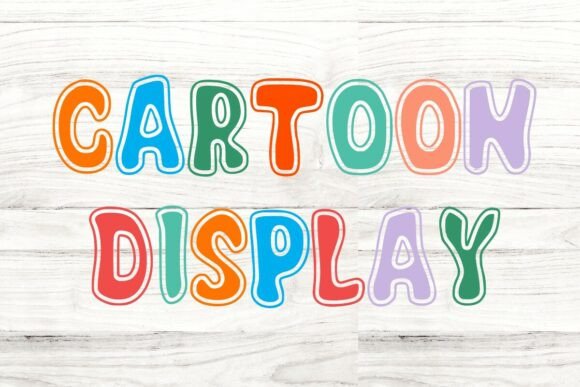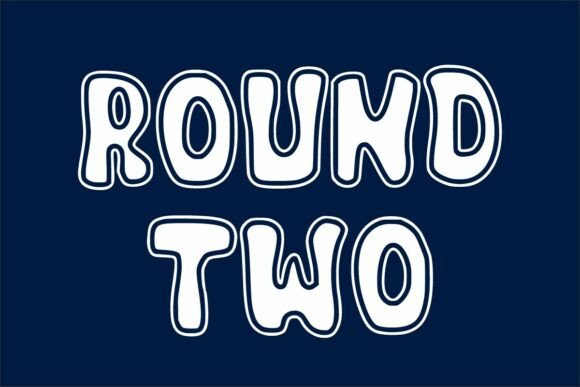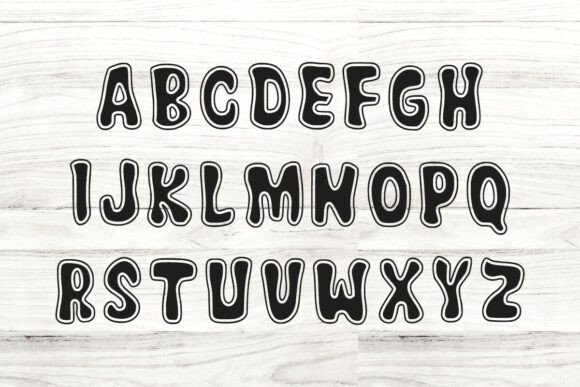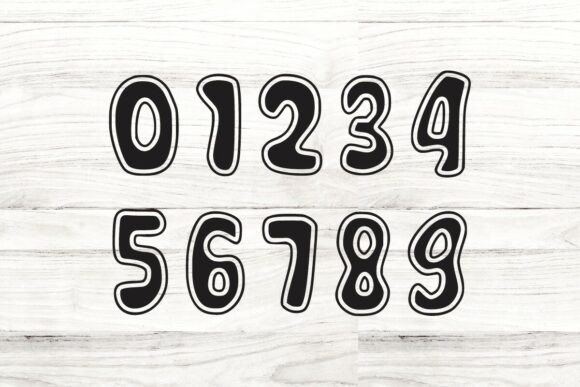
Introducing Black Bubble Font: The Ultimate Playful Display Font
Are you looking for a font that can add a fun and creative touch to your designs? Look no further than Black Bubble Font, a bold and playful outline display font that is sure to capture attention. With its thick, bubbly letters outlined in black, this font strikes the perfect balance between boldness and light-hearted charm, making it ideal for a wide range of creative projects.
The Characteristics of Black Bubble Font
Black Bubble Font is characterized by its rounded edges and whimsical curves, which give it a unique and playful feel. The thick, bubbly letters outlined in black create a striking visual effect that is sure to grab attention. This font is perfect for designers and crafters who want to add a touch of fun and creativity to their work.
Perfect for Playful Branding and Designs
Black Bubble Font is ideal for children’s projects, party invitations, merchandise, or any playful branding that needs a vibrant touch. The font’s retro comic-style energy and modern aesthetics make it a versatile typeface that can be used in both digital and print applications. Whether you’re designing a logo, title, or creative project, Black Bubble Font is sure to make it stand out.
Key Features of Black Bubble Font
- Bold and Playful: Black Bubble Font is a bold and playful outline display font that radiates a fun and creative vibe.
- Thick, Bubbly Letters: The font features thick, bubbly letters outlined in black, creating a striking balance between boldness and light-hearted charm.
- Rounded Edges and Whimsical Curves: The rounded edges and whimsical curves of the font make it ideal for children’s projects, party invitations, and merchandise.
- Retro Comic-Style Energy: Black Bubble Font blends retro comic-style energy with modern aesthetics, making it a versatile typeface for both digital and print applications.
- Easy to Read: The font remains easy to read in various sizes, making it perfect for a wide range of creative projects.
Uses for Black Bubble Font
Black Bubble Font is a versatile typeface that can be used in a variety of creative projects, including:
- Children’s Projects: The font’s playful and fun design makes it perfect for children’s books, educational materials, and activity sheets.
- Party Invitations: Black Bubble Font is ideal for creating eye-catching party invitations that are sure to grab attention.
- Merchandise: The font’s bold and playful design makes it perfect for merchandise, such as t-shirts, mugs, and tote bags.
- Playful Branding: Black Bubble Font is perfect for brands that want to add a touch of fun and creativity to their branding.
- Logos and Titles: The font’s striking visual effect makes it ideal for logos and titles that need to stand out.
Why Choose Black Bubble Font?
Black Bubble Font is a unique and versatile typeface that offers a range of benefits, including:
- Attention-Grabbing: The font’s bold and playful design is sure to grab attention and make your designs stand out.
- Fun and Creative: Black Bubble Font adds a touch of fun and creativity to your designs, making it perfect for playful branding and creative projects.
- Versatile: The font can be used in a variety of creative projects, from children’s projects to merchandise and logos.
- Easy to Read: Black Bubble Font remains easy to read in various sizes, making it perfect for a wide range of creative projects.
Black Bubble Font is a bold and playful outline display font that is sure to add a fun and creative touch to your designs. With its thick, bubbly letters outlined in black, rounded edges, and whimsical curves, this font is perfect for children’s projects, party invitations, merchandise, and playful branding. Its versatility and ease of use make it a great choice for designers and crafters who want to create eye-catching titles, logos, and creative designs.